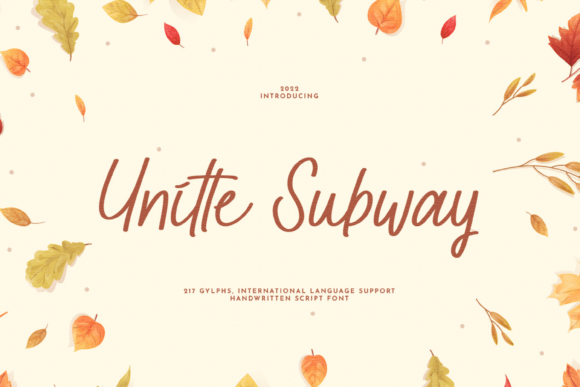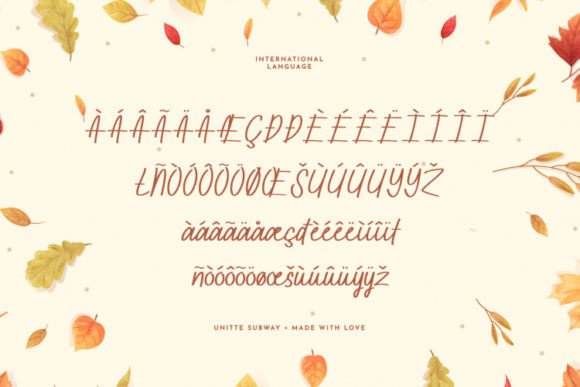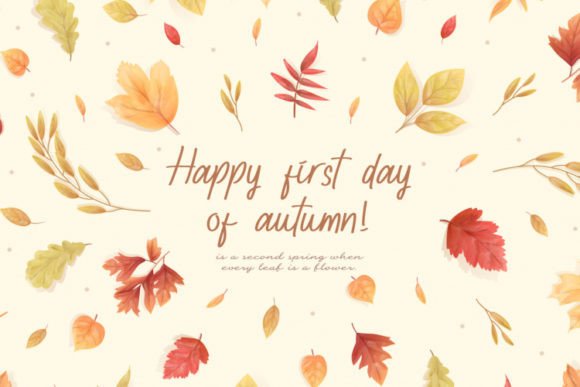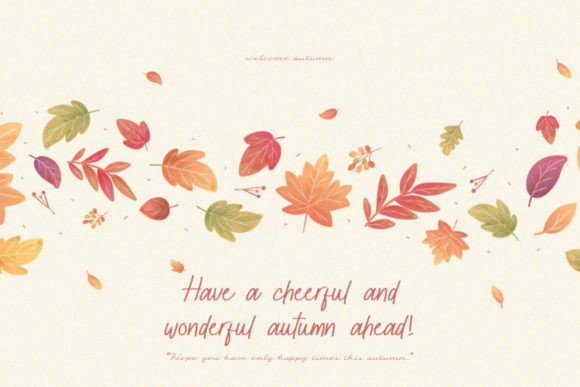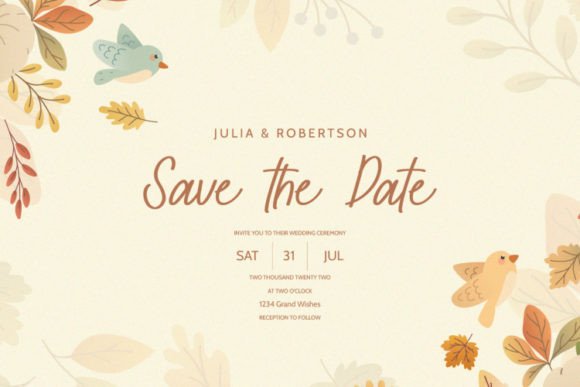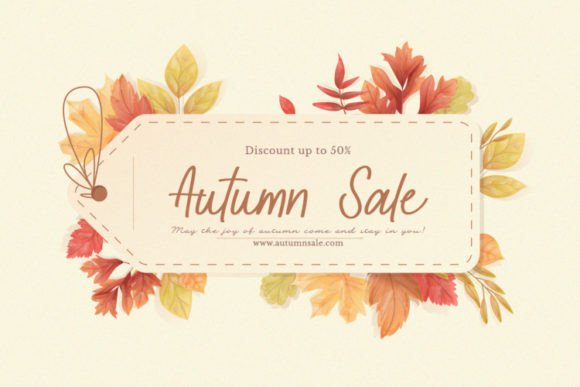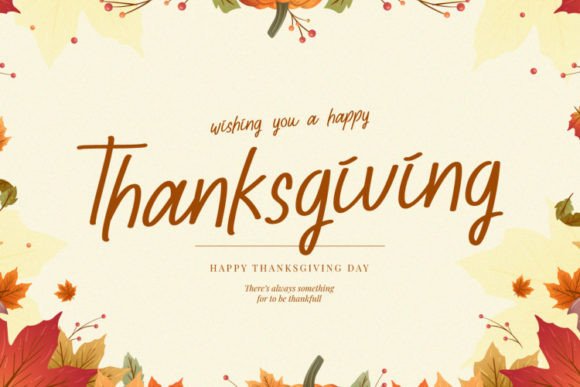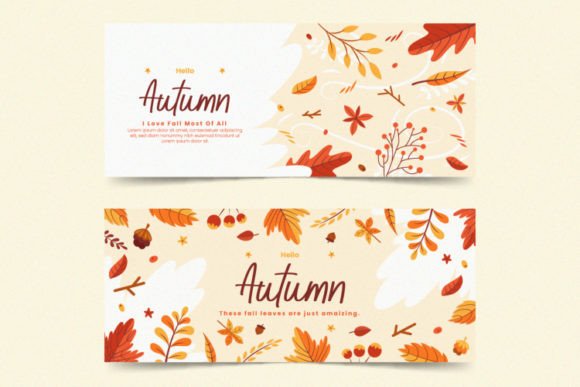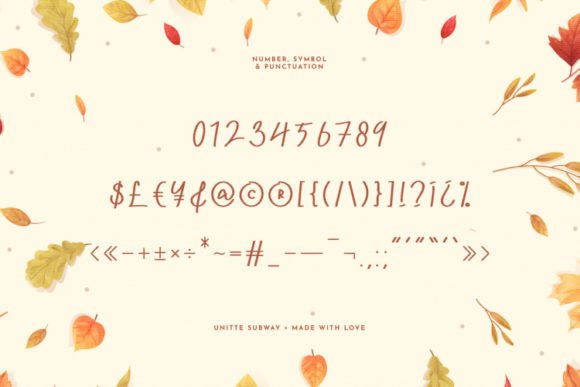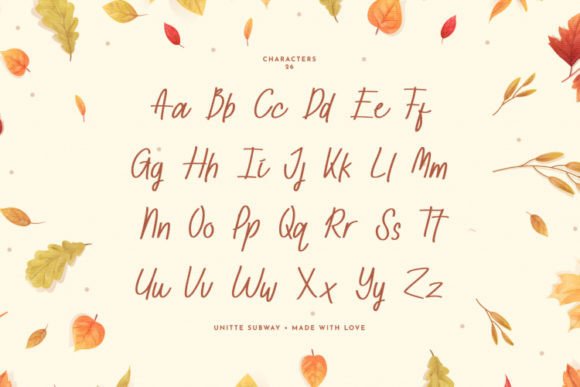
Unitte Subway Font
About Unitte Subway Font
“Unitte Subway” is a naturally refreshing handwritten font that effortlessly combines a clean, thin, and smooth vibe. This font, with its organic and fresh appeal, is poised to be a standout choice for any design you wish to incorporate it into.
The clean and thin strokes of “Unitte Subway” give it a modern and minimalist aesthetic, making it versatile for a variety of design applications. Its simplicity ensures readability while exuding a contemporary and stylish feel.
The smooth vibe of this font adds a touch of elegance, making it suitable for a wide range of design projects. Whether you’re working on branding, invitations, posters, or any other creative endeavor, “Unitte Subway” brings a natural and fresh quality to the table.
The versatility of this font allows it to complement diverse design styles. Its handwritten charm is adaptable to both digital and print media, making it a versatile choice for various platforms.
In essence, “Unitte Subway” is not just a font; it’s a natural and fresh tool that can enhance the visual appeal of your designs. Its clean, thin, and smooth characteristics make it a hit for those seeking a contemporary and stylish handwritten font for their creative projects.